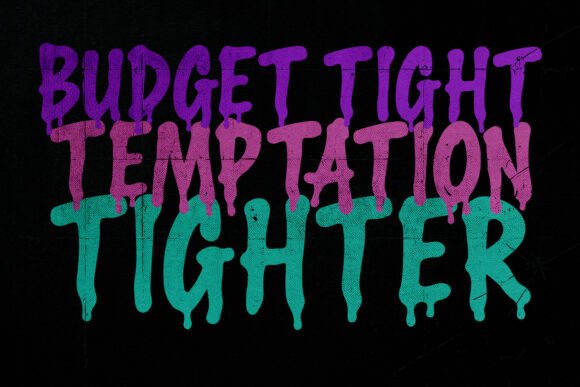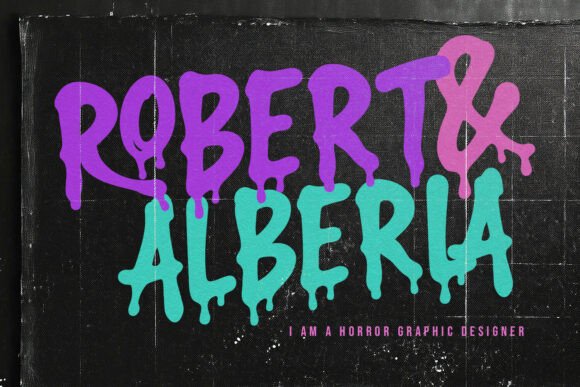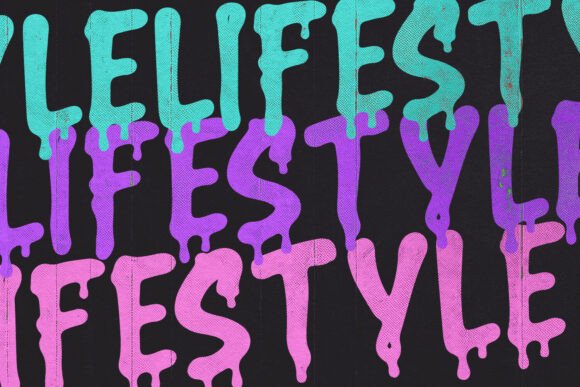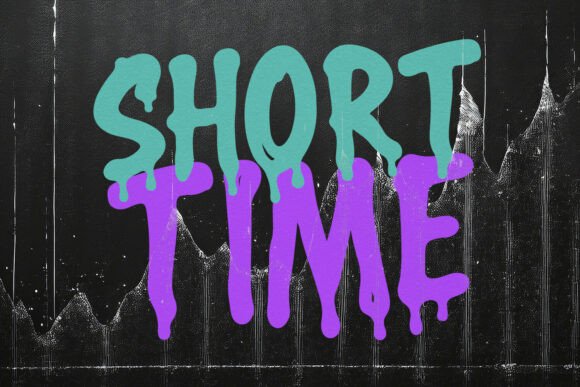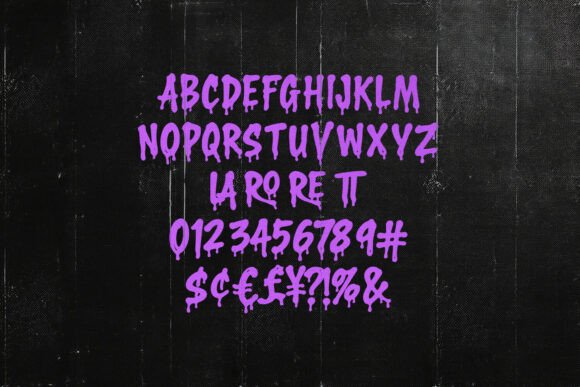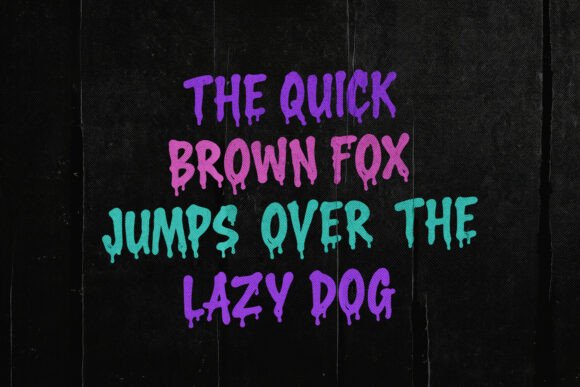
The Rebellious Charm of Berush Reflect: A Font that Packs a Punch
I still remember the project that led me to discover Berush Reflect. I was working on a horror-themed graphics project, and I needed a font that could capture the raw, edgy vibe I was going for. I had tried several fonts, but none of them seemed to deliver the right amount of grit and attitude. That was until I stumbled upon Berush Reflect. With its bold, hand-lettered strokes and “dripping paint” effect, this font instantly brought my design to life. In this article, I’ll share my experience with Berush Reflect, its features, and how to make the most of it in your designs.
First Impressions: What I Love About Berush Reflect
Here’s what makes Berush Reflect stand out:
- ✨ High-impact visuals: The font’s textured edges and liquid-like terminals give it a unique, eye-catching look that’s perfect for making a statement.
- ✅ Versatility: Berush Reflect can be used for a wide range of projects, from horror-themed graphics to edgy streetwear branding and music posters.
- 💥 Expressive strokes: The font’s bold, hand-lettered strokes convey a sense of energy and rebelliousness that’s hard to match.
While Berush Reflect is an amazing font, it’s not without its limitations:
- 🤔 Legibility at small sizes: Due to its textured edges and bold strokes, Berush Reflect can be tricky to read at small font sizes. It’s best used at larger sizes where its unique features can shine.
- ⚠️ Limited use in formal designs: Berush Reflect’s edgy vibe makes it less suitable for formal or professional designs, such as corporate branding or official documents.
The Story Behind Berush Reflect
Berush Reflect was designed with the urban street art scene in mind. Its creator wanted to capture the raw energy and rebelliousness of graffiti and street art, and bring it to the world of typography. The result is a font that’s both bold and expressive, perfect for designers who want to make a statement.
| What type of projects is Berush Reflect best suited for? | Berush Reflect is perfect for horror-themed graphics, edgy streetwear branding, music posters, and modern graffiti displays. |
| Is Berush Reflect difficult to read? | Berush Reflect can be challenging to read at small font sizes due to its textured edges and bold strokes. It’s best used at larger sizes. |